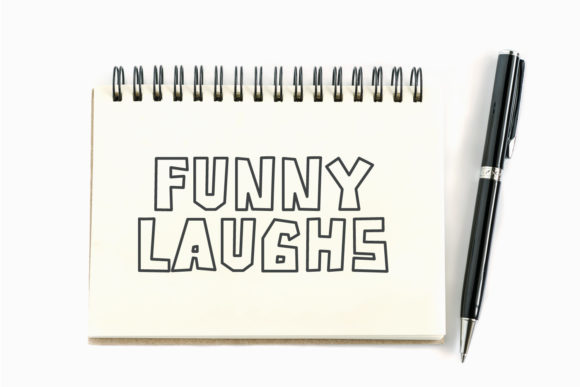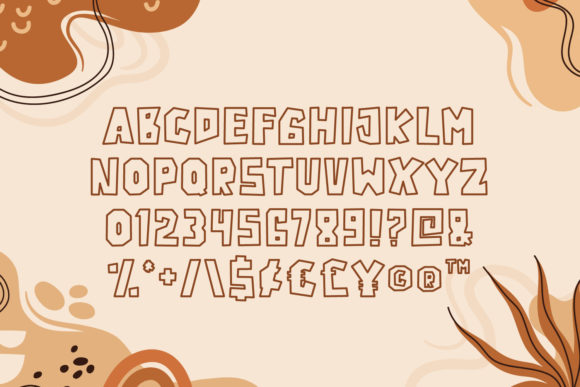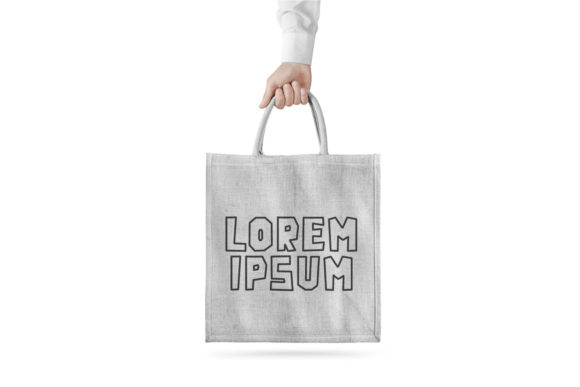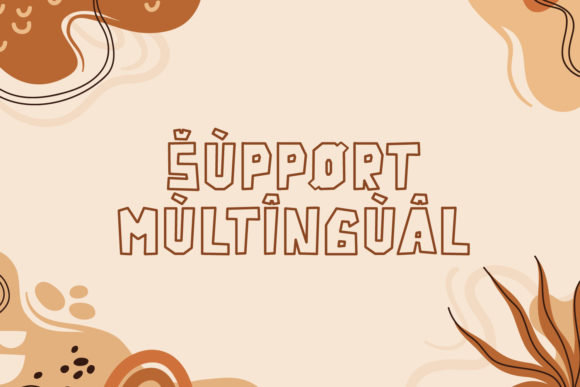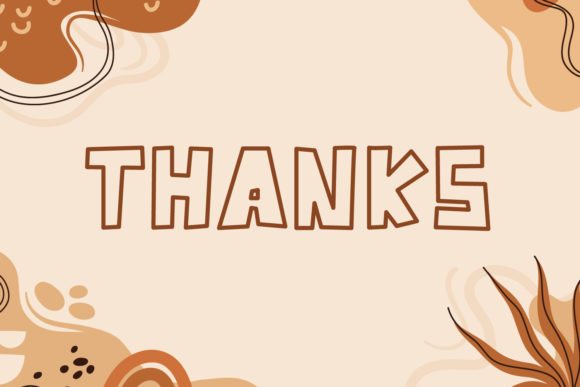
Introduction to Kids Funny Font
Have you ever stared at a blank canvas, eager to bring a creative project to life, only to be stuck on the perfect font to match your vision? That’s where the magic of the Kids Funny Font comes in – a quirky and charming display font that’s sure to add a playful touch to any design.
With its casual charm and down-to-earth feel, the Kids Funny Font is a valuable resource for designers looking to add a high-quality, unique element to their designs. Whether you’re working on a branding project, a social media campaign, or a children’s book, this font is sure to bring a smile to your face and make your design stand out from the crowd.
Key Features of Kids Funny Font
- Unique and playful design perfect for creative projects targeting kids and families.
- Perfect for digital projects such as kids’ apps, games, and websites, as well as print materials like posters and stickers.
- Comes with a comprehensive character set, including uppercase and lowercase letters, numbers, and punctuation marks.
Honest Review: Kids Funny Font
I recently had the chance to experiment with the Kids Funny Font and I must say it’s been a delightful addition to my creative project. The font is perfect for adding a playful touch to any design, making it a great resource for designers working on children’s materials or campaigns.
However, there are some limitations to keep in mind: ⚠️ Limited character set and some potential compatibility issues with certain design software. It’s also worth noting that the font is quite large, so it may not be suitable for all design applications.
Overall, I’m quite impressed with the Kids Funny Font. While it’s not perfect, it’s a great resource for designers looking to add a playful touch to their work. I would recommend it for projects where a fun and lighthearted design is desired.
- Perfect for children’s materials or campaigns
- Limited character set
Tips for Getting the Most Out of Kids Funny Font
The Kids Funny Font is a high-quality design resource that can be used in a variety of creative projects. To get the most out of it, be sure to use it in conjunction with other design elements, such as images and graphics. This font is perfect for creating eye-catching designs that are sure to grab the attention of your target audience. Additionally, the font’s transparent background makes it easy to layer over other design elements.
Common Use Cases for Kids Funny Font